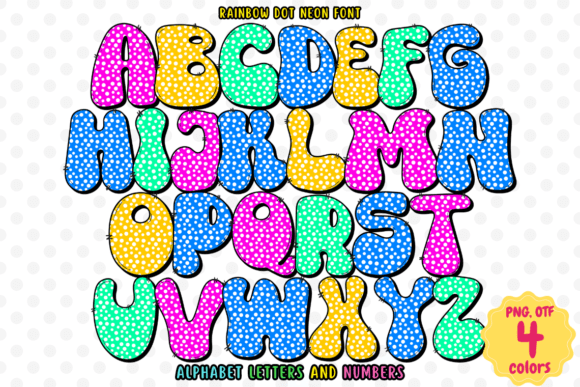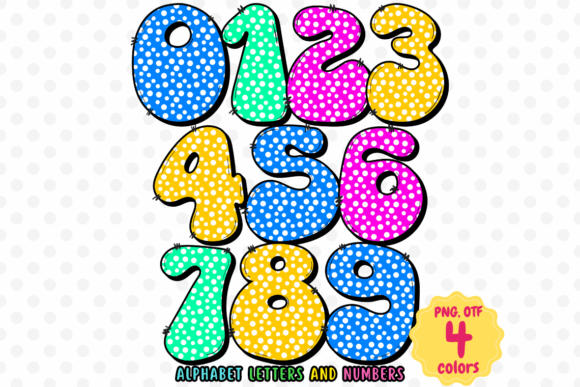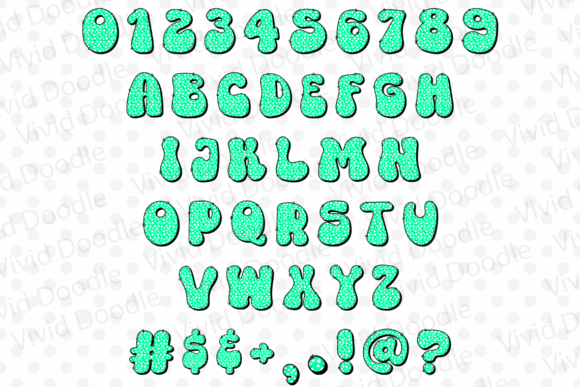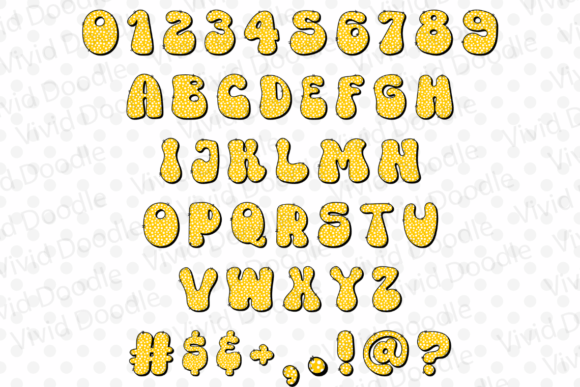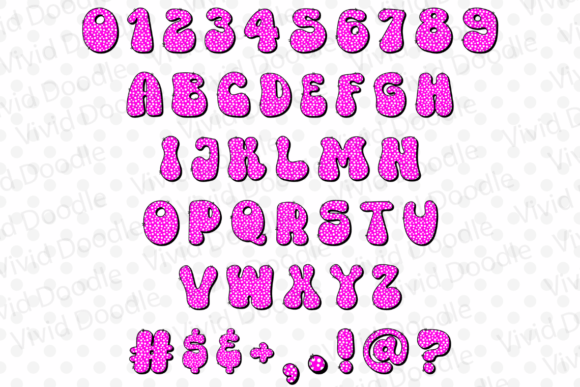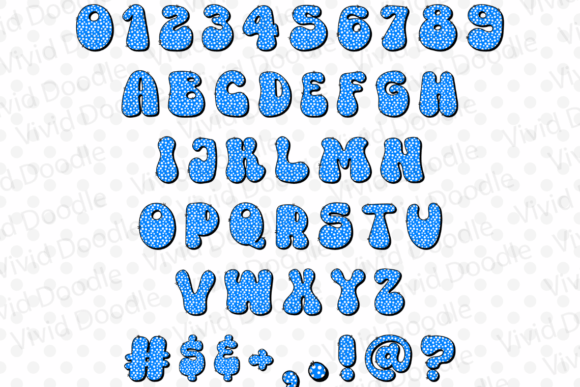
Introduction to Rainbow Dot Neon Font
Remember the thrill of browsing through design inspiration boards, stumbling upon a vibrant project that makes your heart skip a beat? That’s exactly what happens when you lay eyes on the Rainbow Dot Neon Font. This high-quality, eye-catching typeface is a game-changer for designers, adding a burst of color and energy to any creative project.
With its playful blend of neon hues arranged in a dotted pattern, the Rainbow Dot Neon Font is a design resource like no other. Whether you’re working on a free download, a school project, or a professional design, this font is sure to capture attention and make your designs pop. Plus, its transparent background makes it easy to use on any background, giving you endless possibilities to experiment and express your creativity.
Key Features of Rainbow Dot Neon Font
- Unique, colorful design with a neon effect, perfect for creative projects.
- Perfect for adding a pop of color and creativity to your designs, whether it’s for digital or print media.
Honest Review: Rainbow Dot Neon Font
I recently stumbled upon the Rainbow Dot Neon Font while searching for high-quality design resources for my creative project. I’m excited to share my honest review with you.
- The font has a vibrant and energetic feel to it, perfect for any project that needs a pop of color.
- The font may not be suitable for all types of designs, as it’s quite bold and eye-catching.
Overall, I’m impressed with the Rainbow Dot Neon Font. It’s a great addition to any design library, and I’m sure it will come in handy for many creative projects. If you’re looking for a fun and energetic font, I’d definitely recommend giving it a try.
The Rainbow Dot Neon Font is ideal for creative projects that require a high-quality, attention-grabbing font. Some common use cases include designing neon signs, creating digital art, and adding a pop of color to your website or social media graphics.
Tips for Getting the Most Out of Rainbow Dot Neon Font
To get the most out of the Rainbow Dot Neon Font, use it with a transparent background to create a sleek and modern look. You can also experiment with different font sizes, colors, and styles to create a unique design effect.
Yes, the Rainbow Dot Neon Font is designed to work well with a transparent background. This makes it perfect for use in creative projects where you need to add text or graphics over a background image or video.